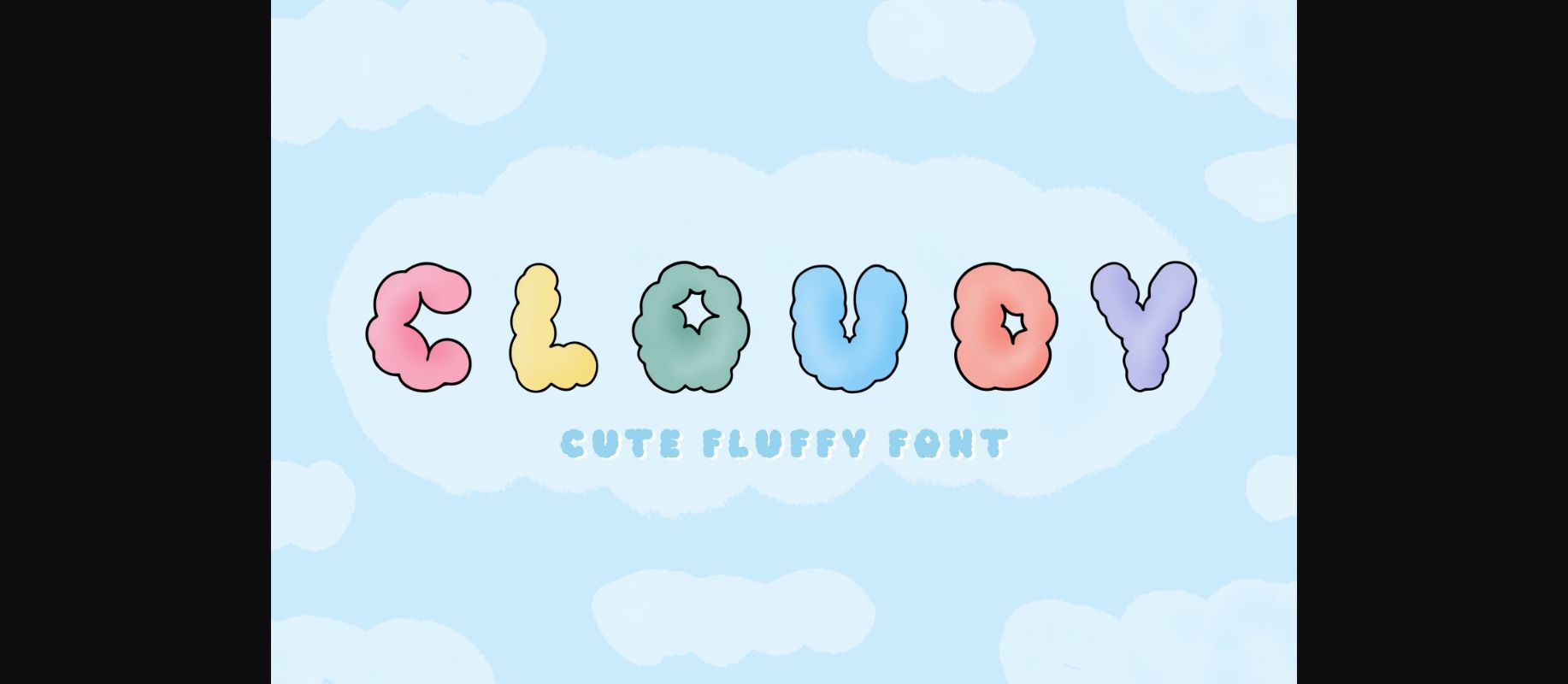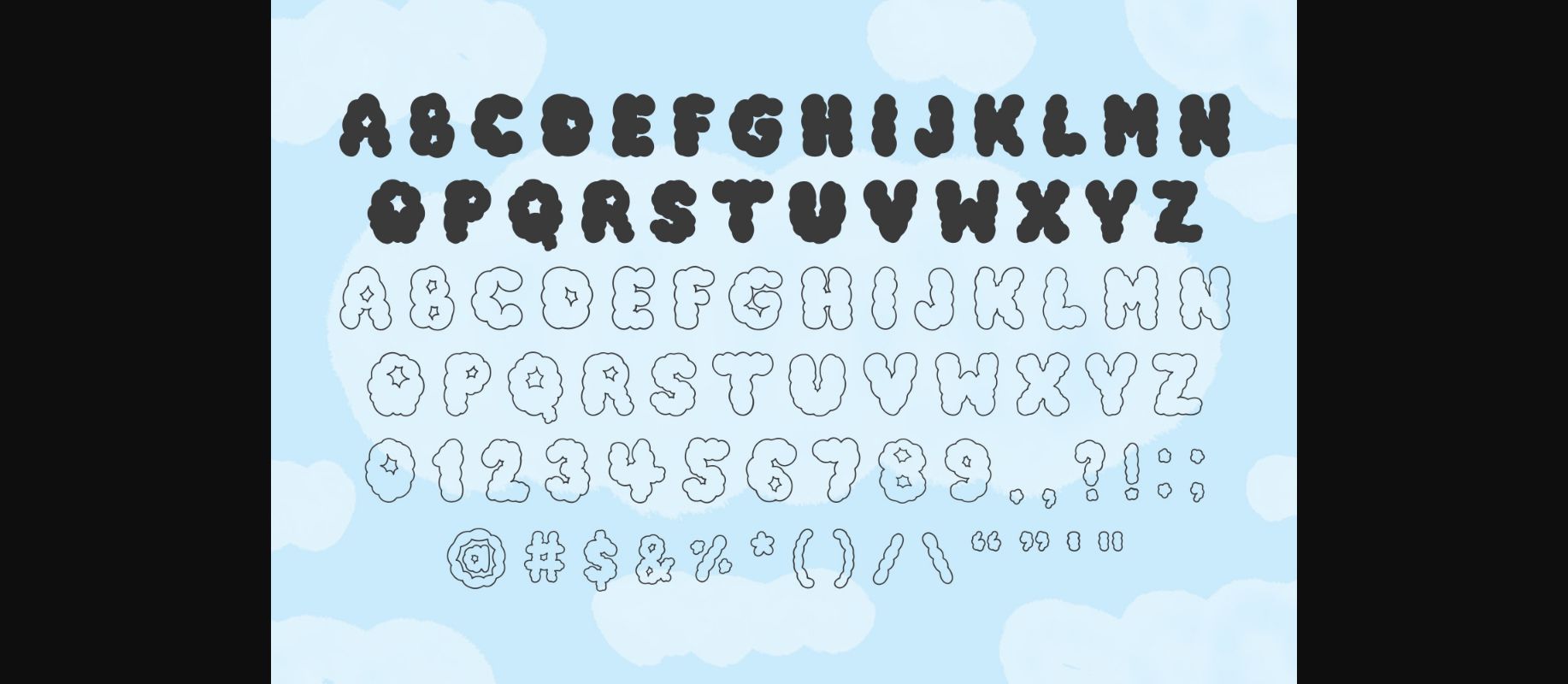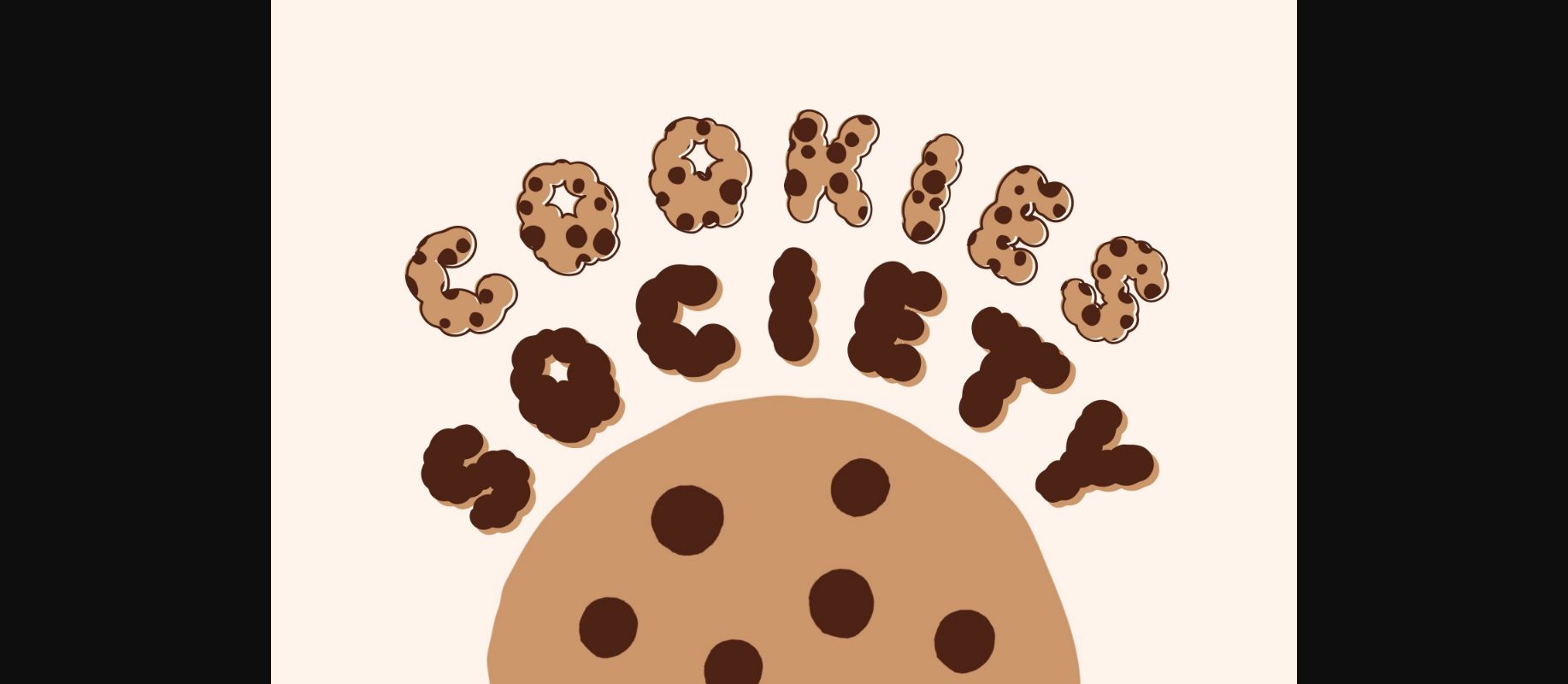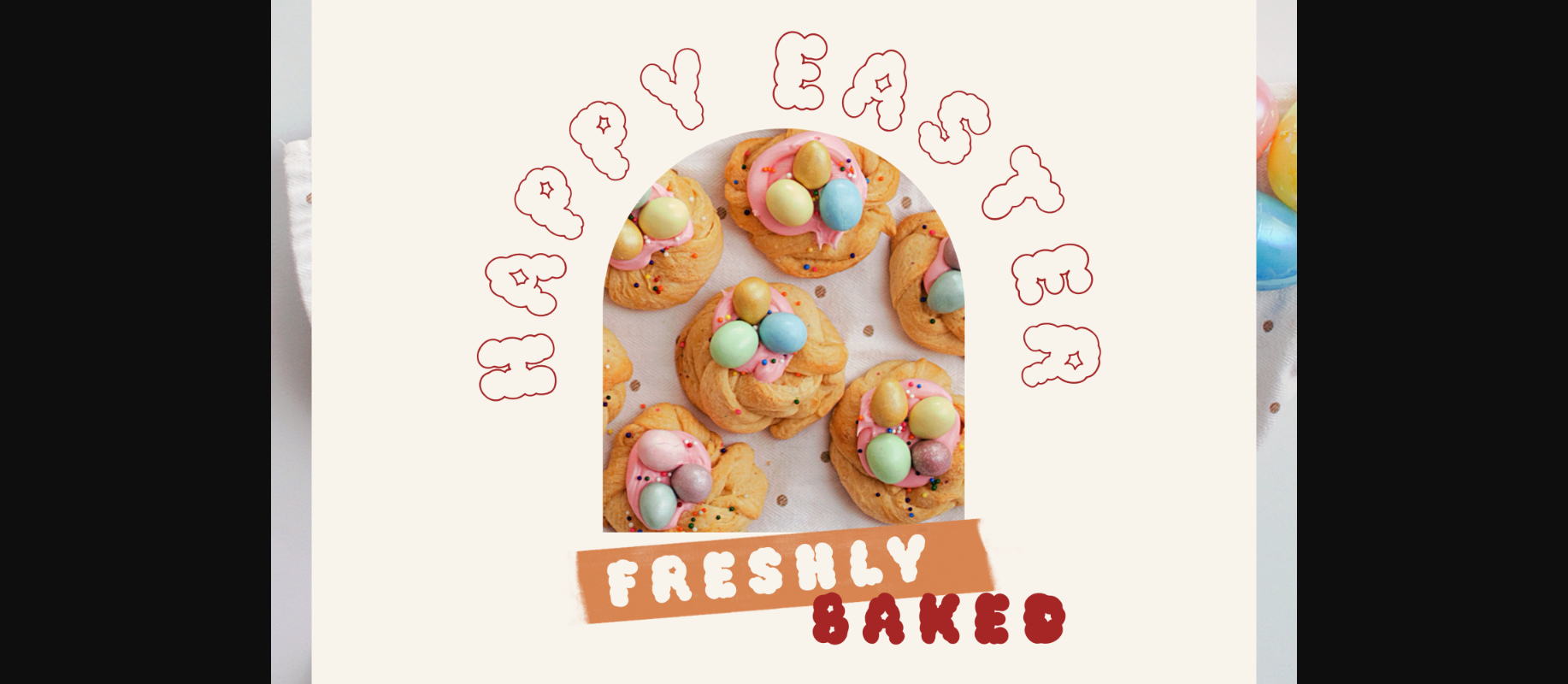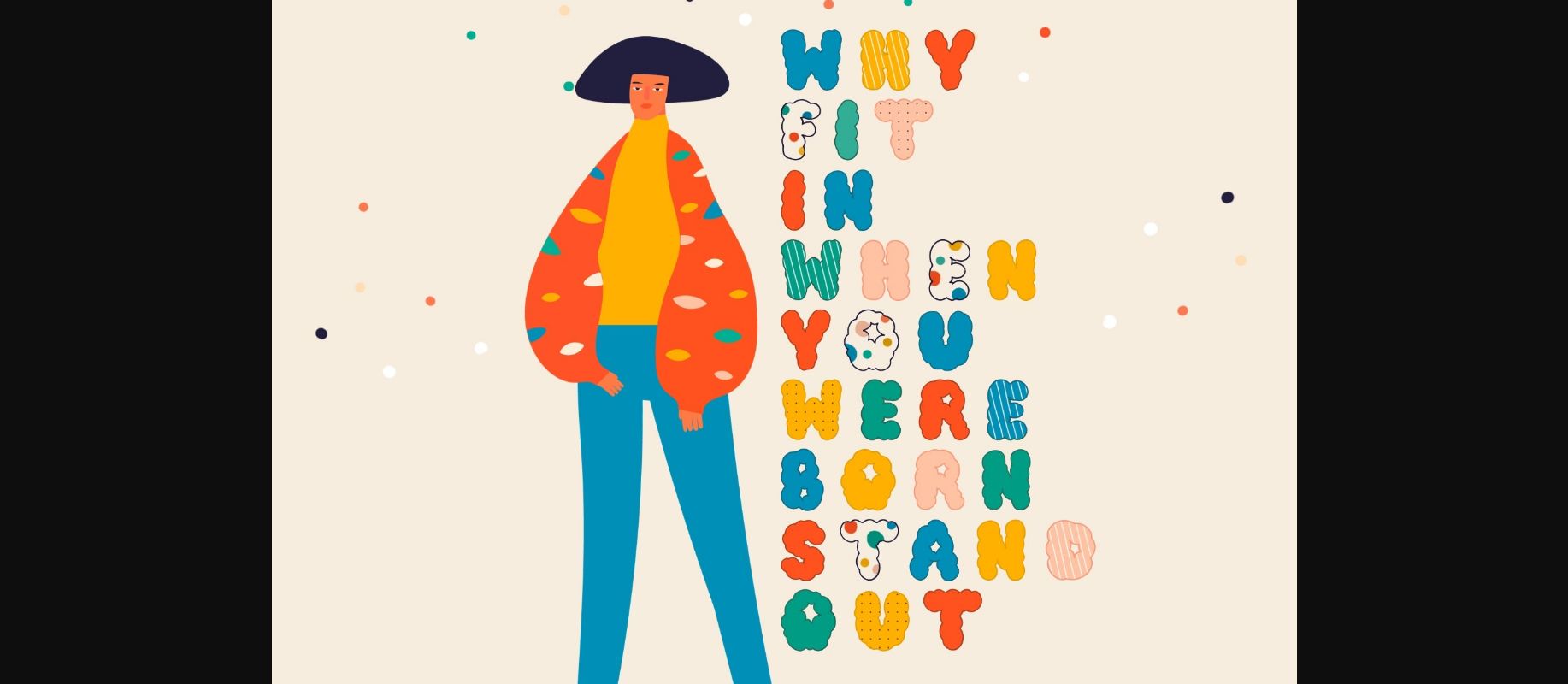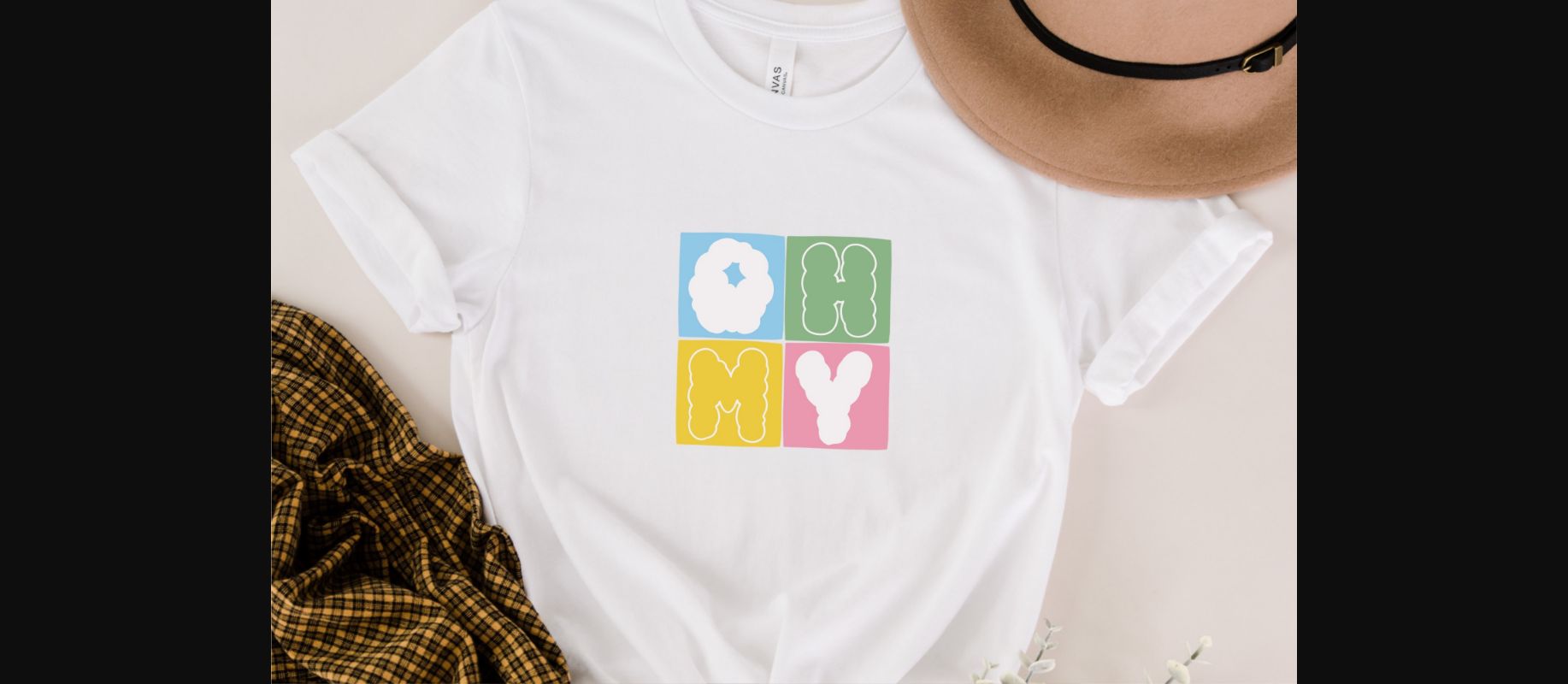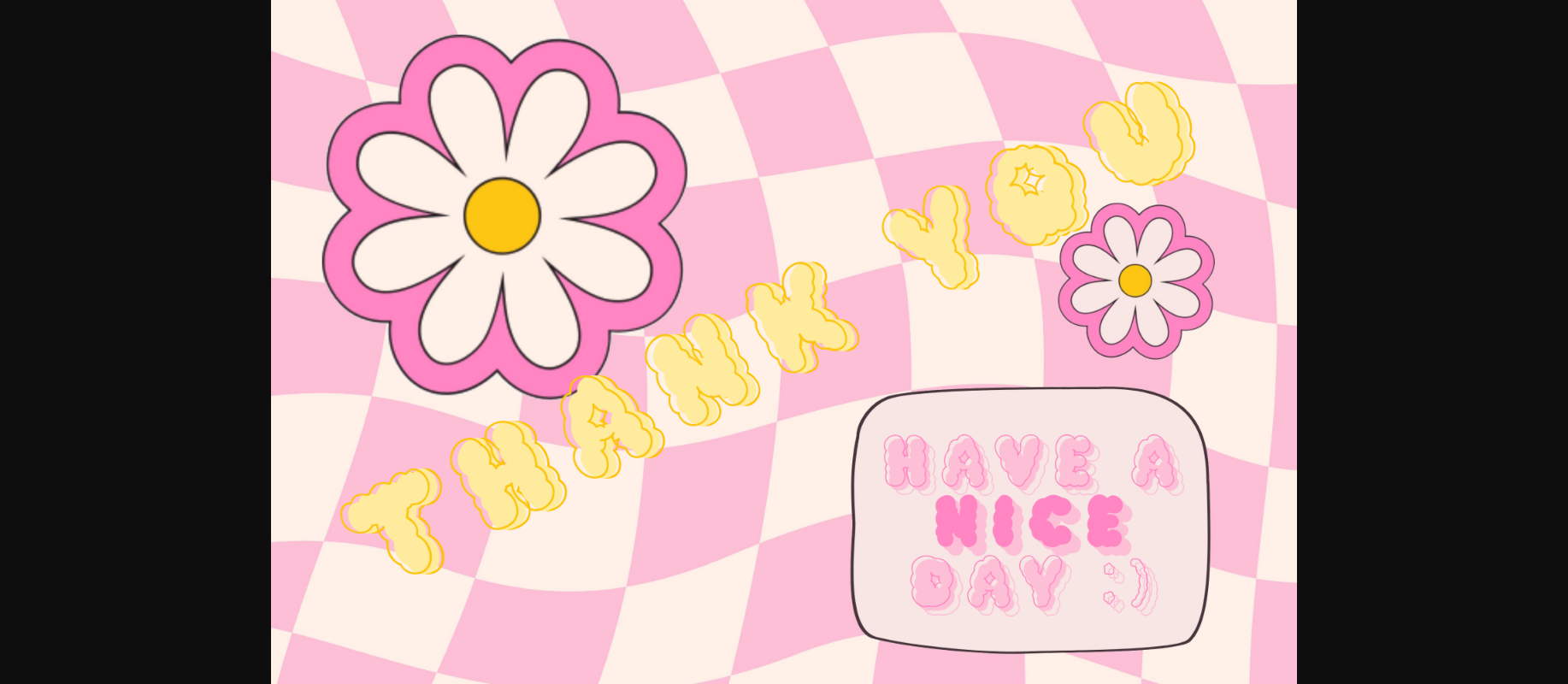
Cloudy Font
About Cloudy Font
Cloudy Font is a cute, fun, all-caps hand-drawn font. You can use this lovely decorative font in various projects – blog posts, logos, branding, digital planners, invitations, greeting cards, planners, photo albums, decorations, and much more.